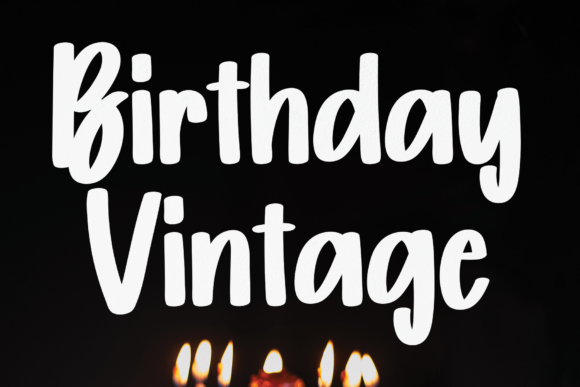
Step into the world of Birthday Vintage, a script font that will ignite your creativity and bring a touch of elegance to your designs. Crafted by the skilled hands of Roronoa zoro.S.P.D, this font exudes casual boldness, ready to make a statement in any project you undertake.
With Birthday Vintage, you'll discover a font that effortlessly conveys confidence, authenticity, and charm. Its meticulously crafted characters dance across the page, leaving a trail of sophistication and flair. Unleash your inner artist and let your imagination soar as you explore the endless possibilities that await with this remarkable script font.
As you delve into the depths of Birthday Vintage, you'll uncover a font that's not just visually stunning but also remarkably versatile. Its carefully balanced strokes and rhythmic flow make it the perfect choice for a wide array of creative endeavors. From whimsical cards that express your heartfelt sentiments to captivating branding that leaves a lasting impression, Birthday Vintage is your steadfast companion, ready to elevate your designs to new heights.
Embrace the allure of Birthday Vintage and let your creativity flourish. Whether you're a seasoned designer seeking a touch of distinction or a budding artist yearning to make your mark, this script font will ignite your passion and unleash your boundless potential. Transform your designs into masterpieces, leaving an indelible mark on the hearts and minds of those who encounter them.
So, embark on this creative journey with Birthday Vintage, and discover a world where beauty and functionality harmoniously intertwine. Prepare to be captivated as this font becomes your trusted ally, guiding you toward design excellence and leaving a legacy of stunning creations that speak volumes about your artistry and dedication.